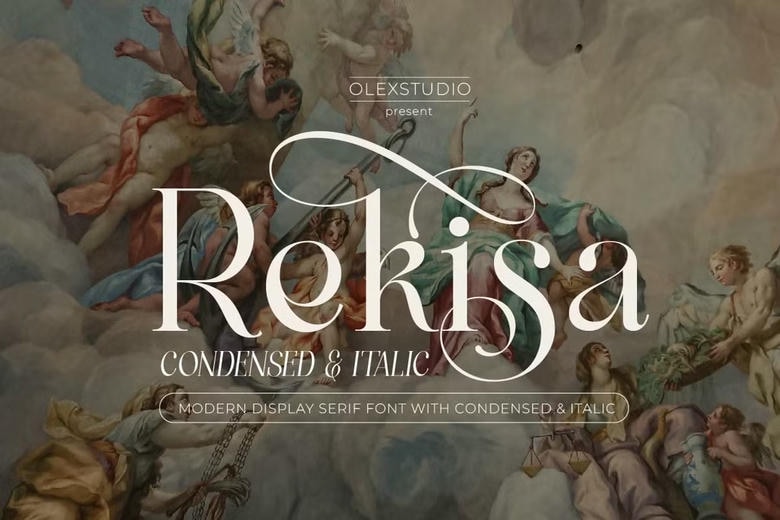
Rekisa Font
Rekisa is a Modern Display Serif Font will look gorgeous on all your designs, invitation, poster design, book design, branding materials, logo’s, and all project design other. With font families such as italic and condensed, this font is easy to use for various design needs.
Rekisa Serif Font